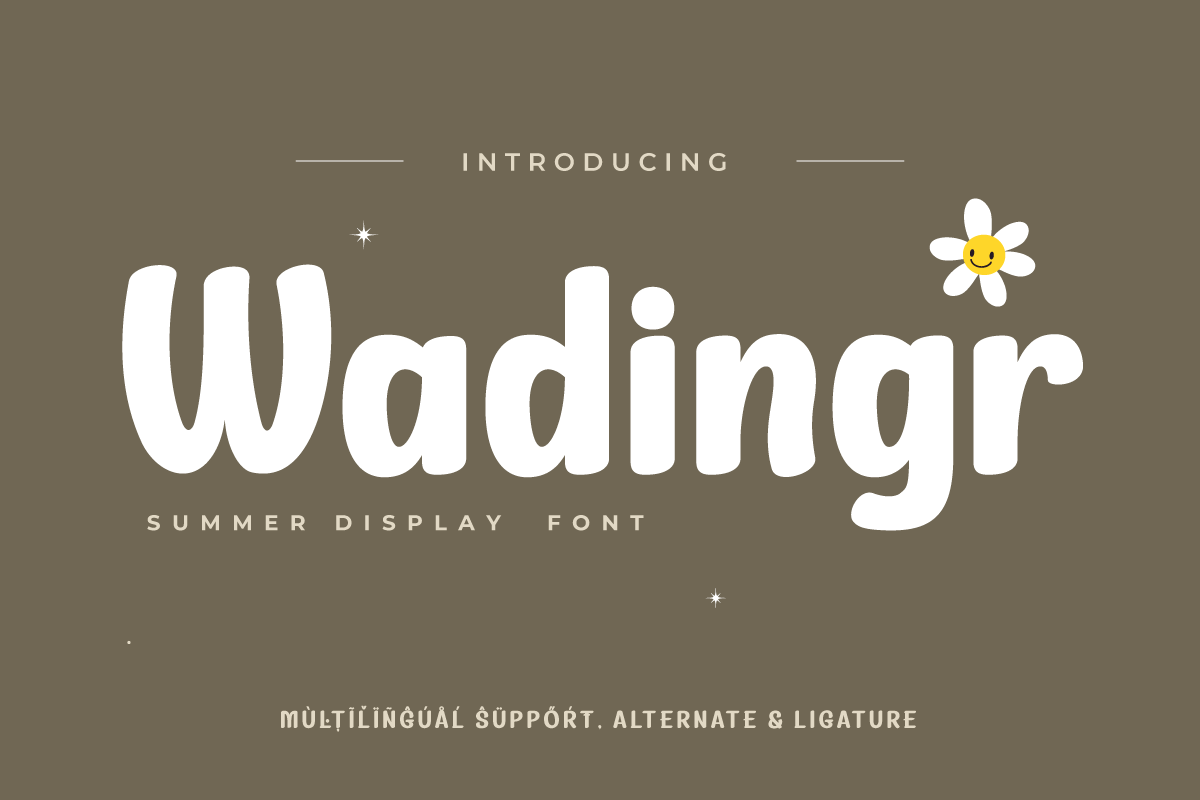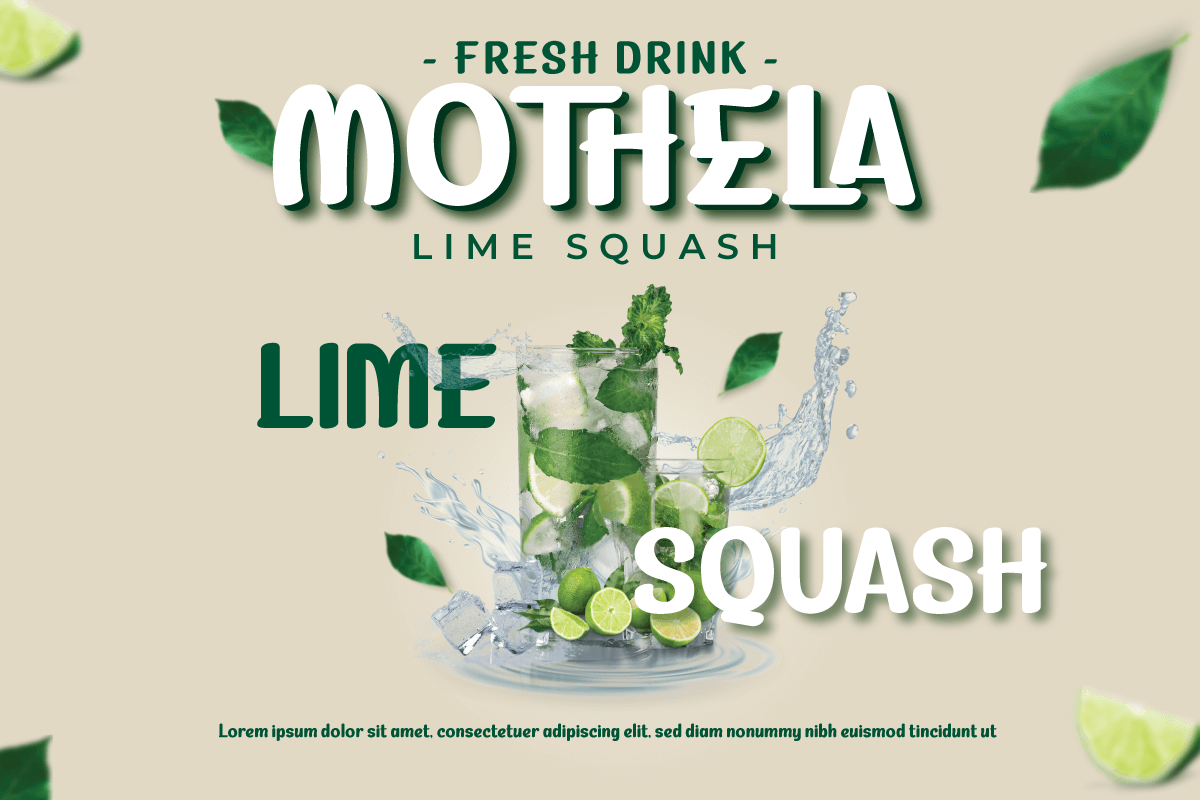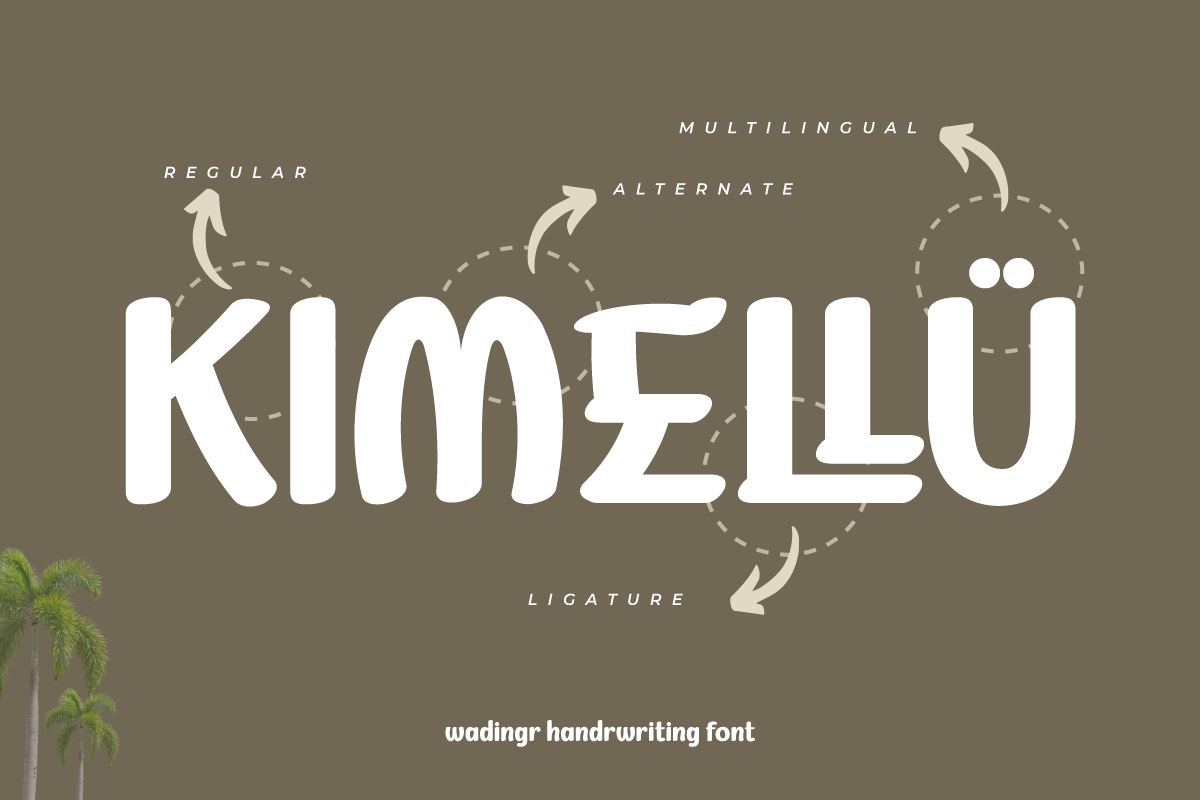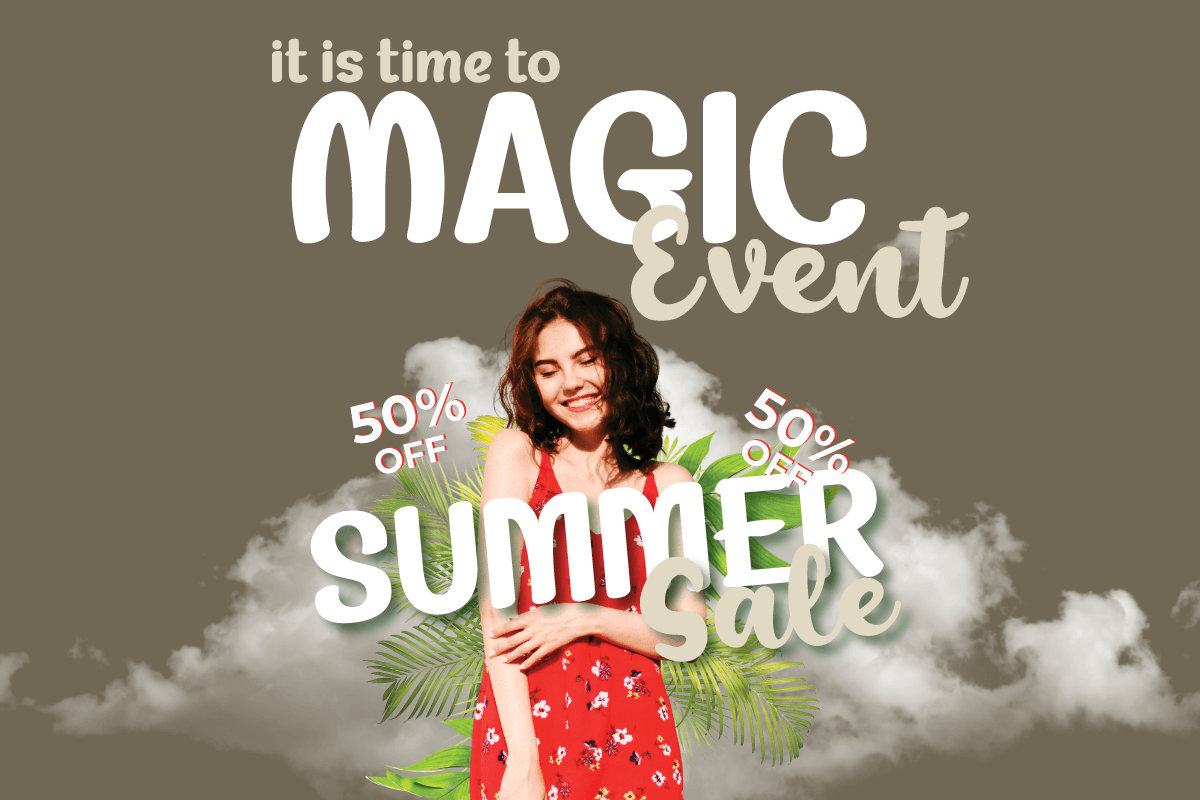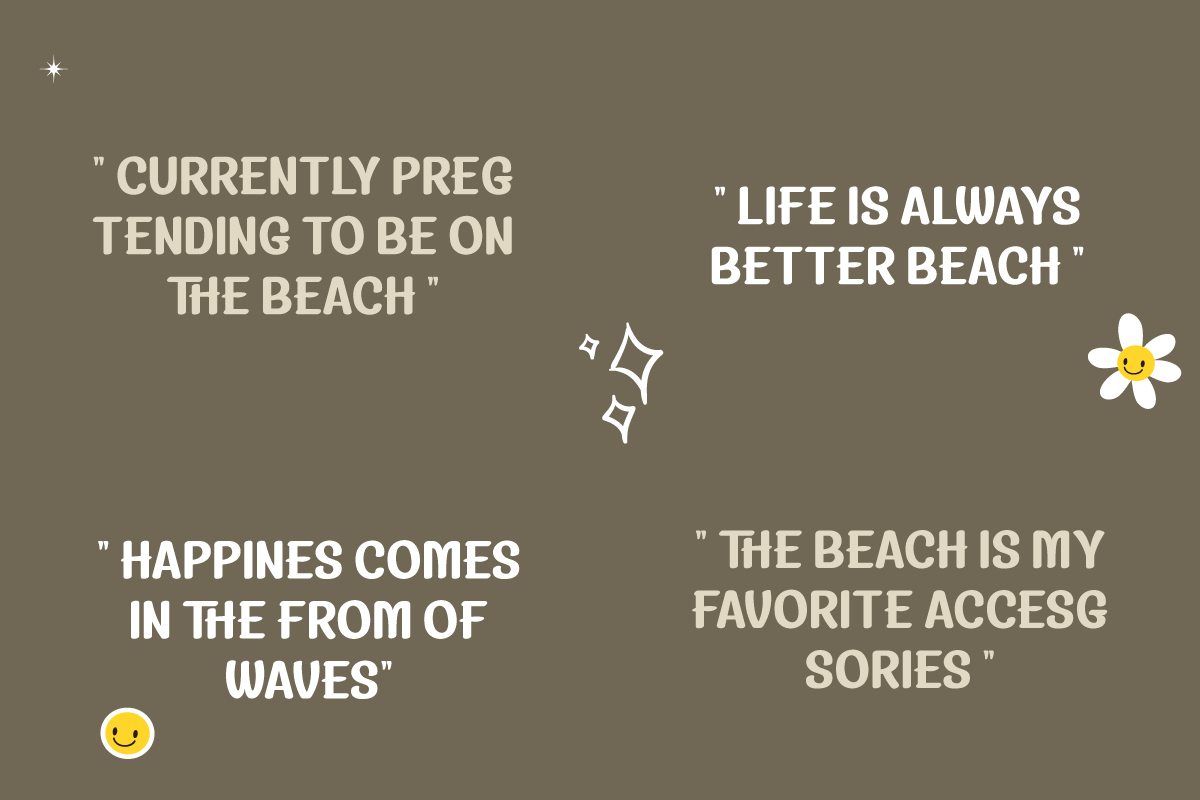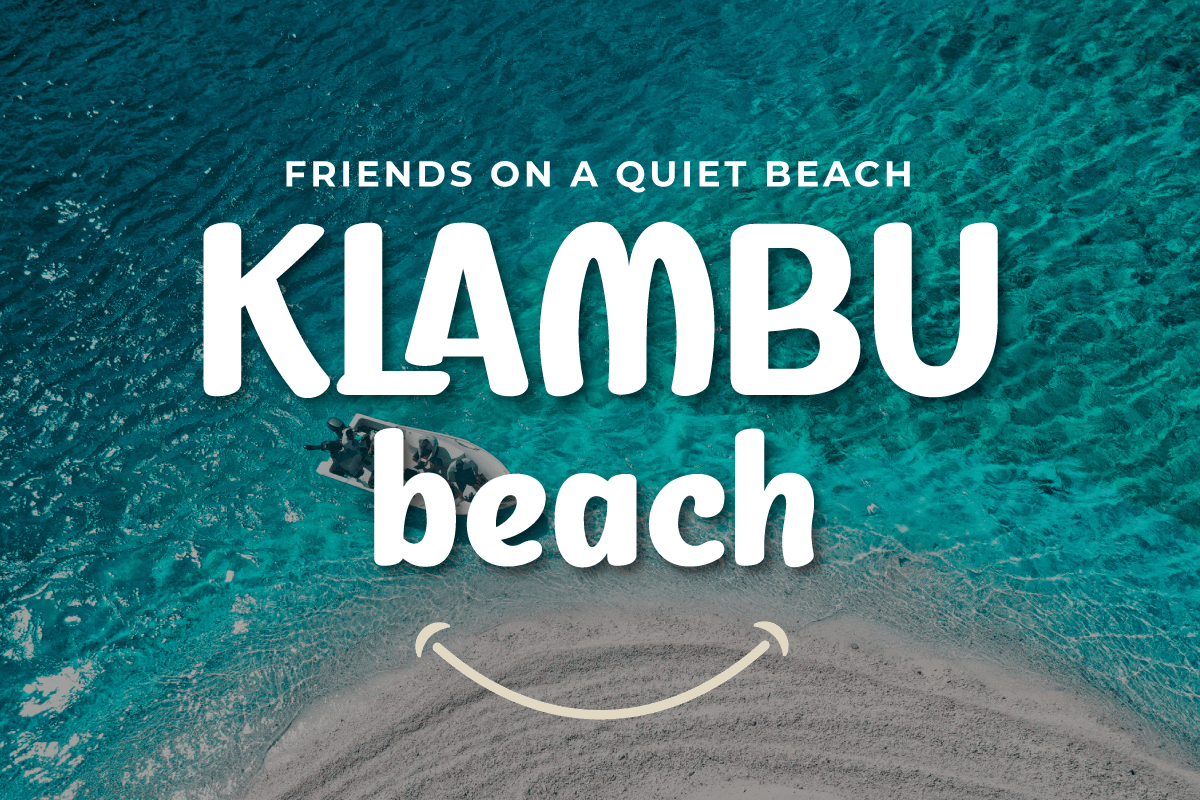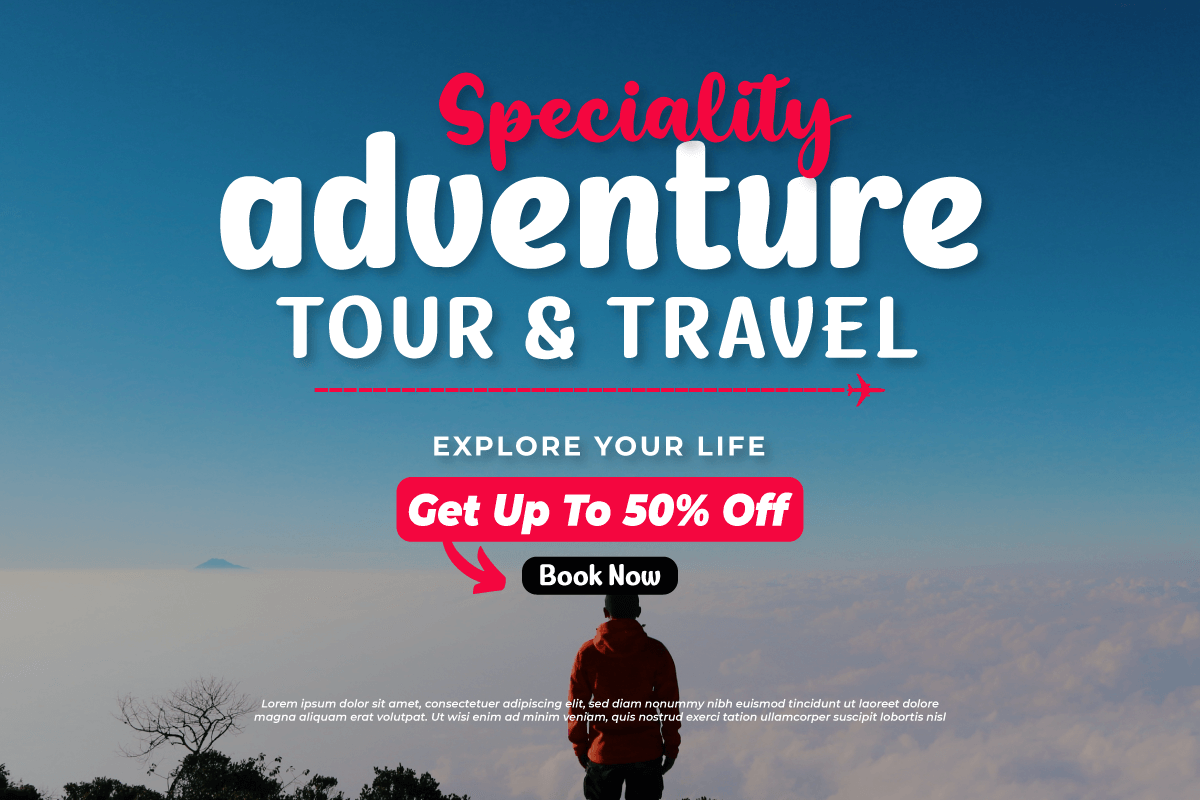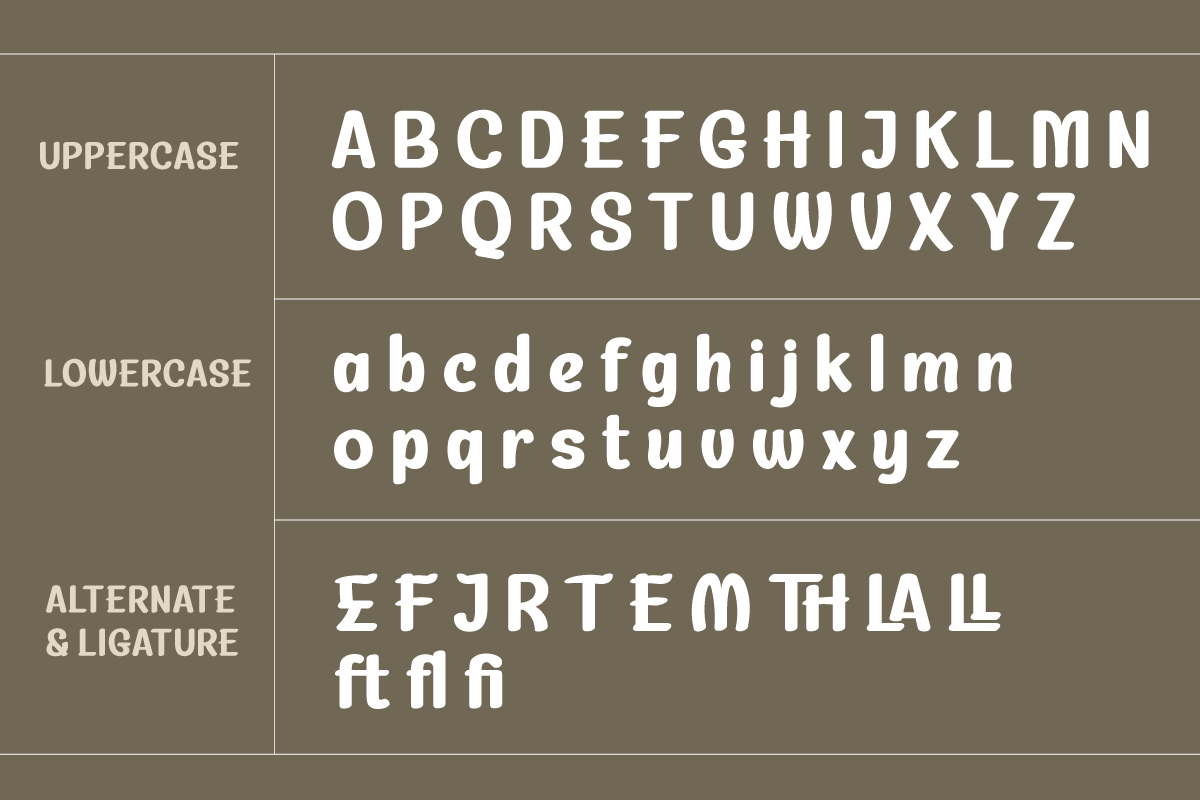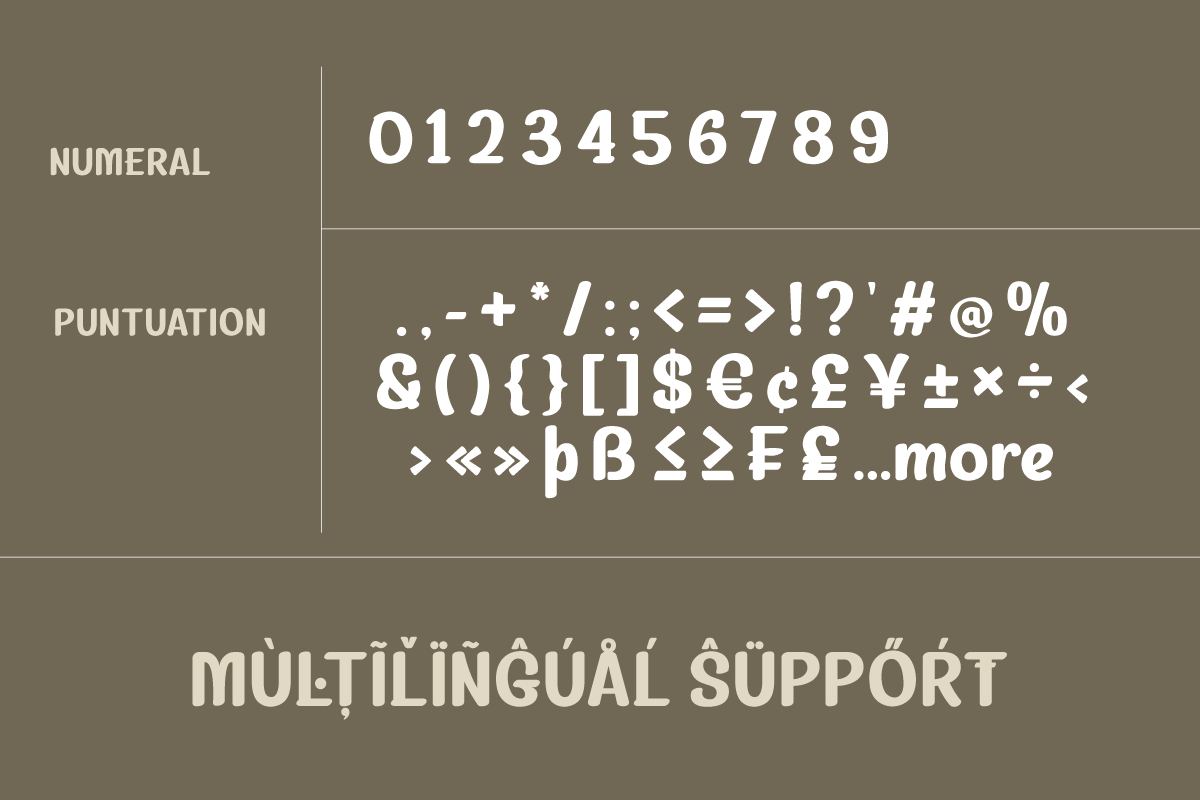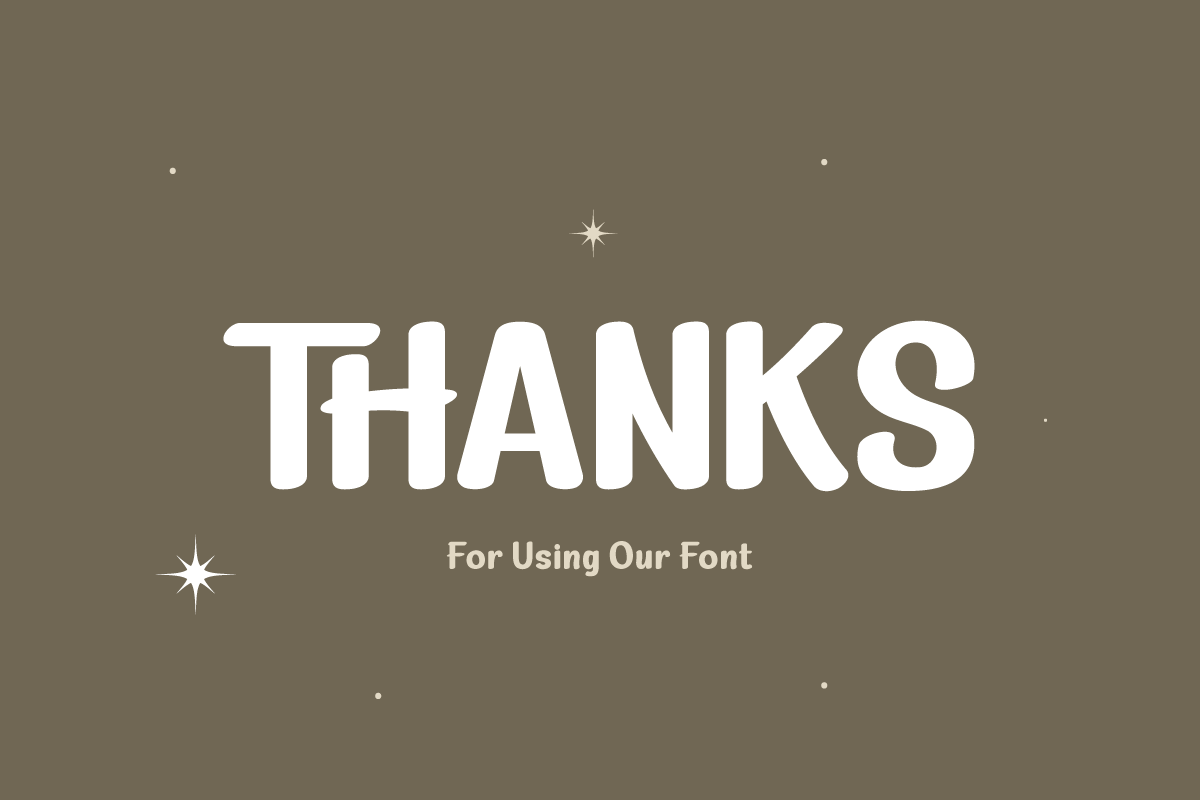
5. Wadingr – Handwriting Font
Wadingr – Handwriting Font
Welcome to the world of Wadingr, a relaxing handwritten font that brings a familiar touch to any of your projects. With Wadingr, you can bring a relaxed feel and unstuffy titles to your designs.
Wadingr’s advantage lies in its ease of use. This font comes with key features like ligatures and alternatives that allow you to customize your design to perfection. Whether you’re creating promotional materials, greeting cards, or web design, Wadingr will provide the right personal touch.